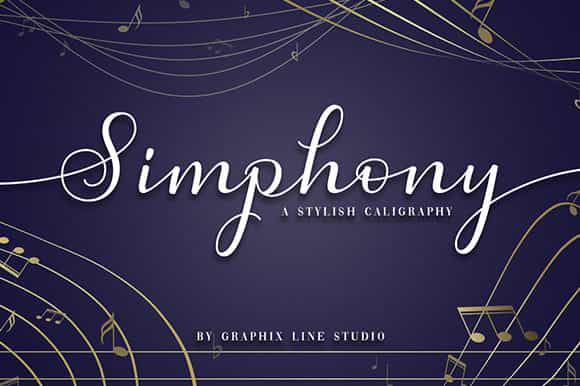
Introducing Simphony, also Perfect for use a title, branding, logo design, fashion design, or product packaging. This font good for vintage design, t-shirt, logo, labels, posters, quotes, lettering, etc.